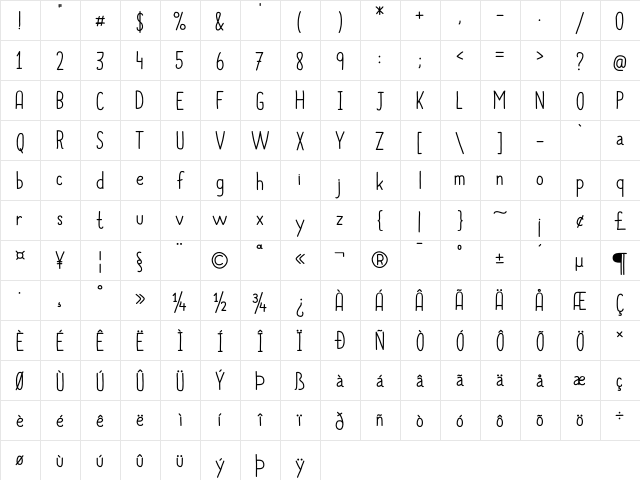
Always Together Regular
| Foundry | Paulo R |
| Designer | Paulo R |
Design Context for Always Together Typeface
Always Together is a composed and adaptable typeface that performs quietly and consistently across a wide range of design contexts.